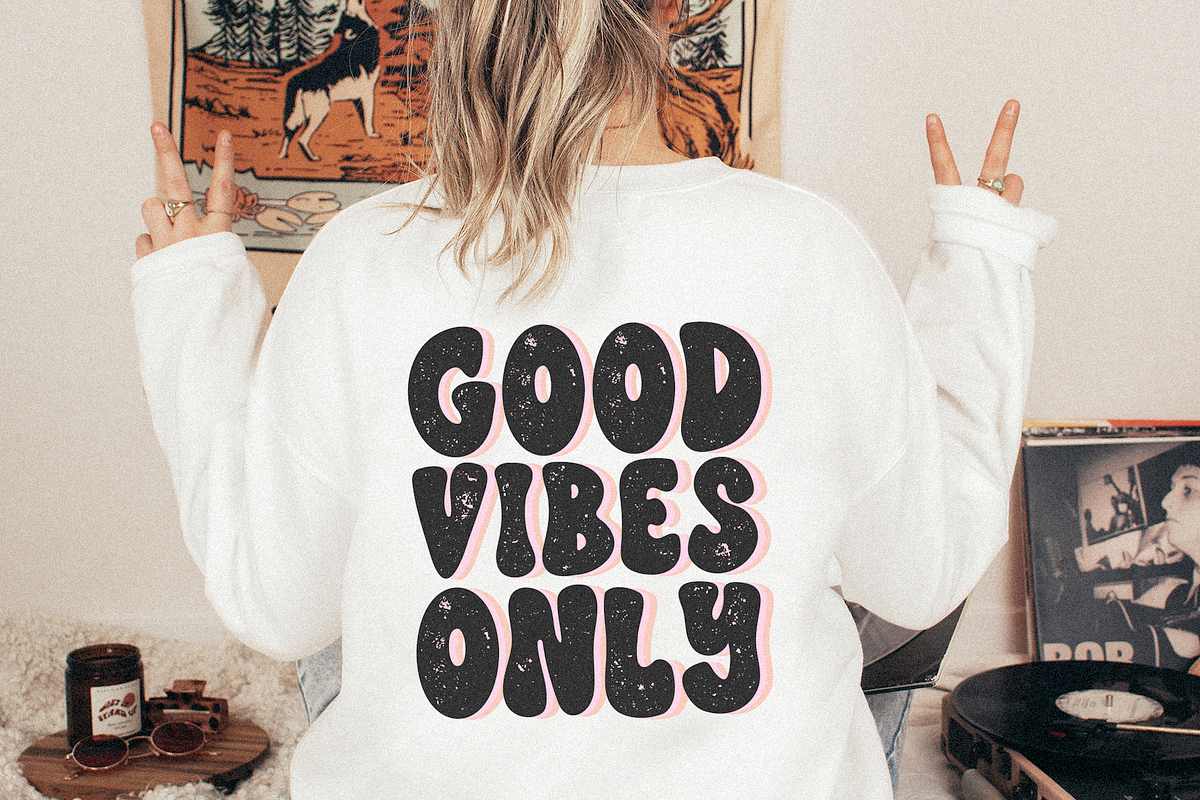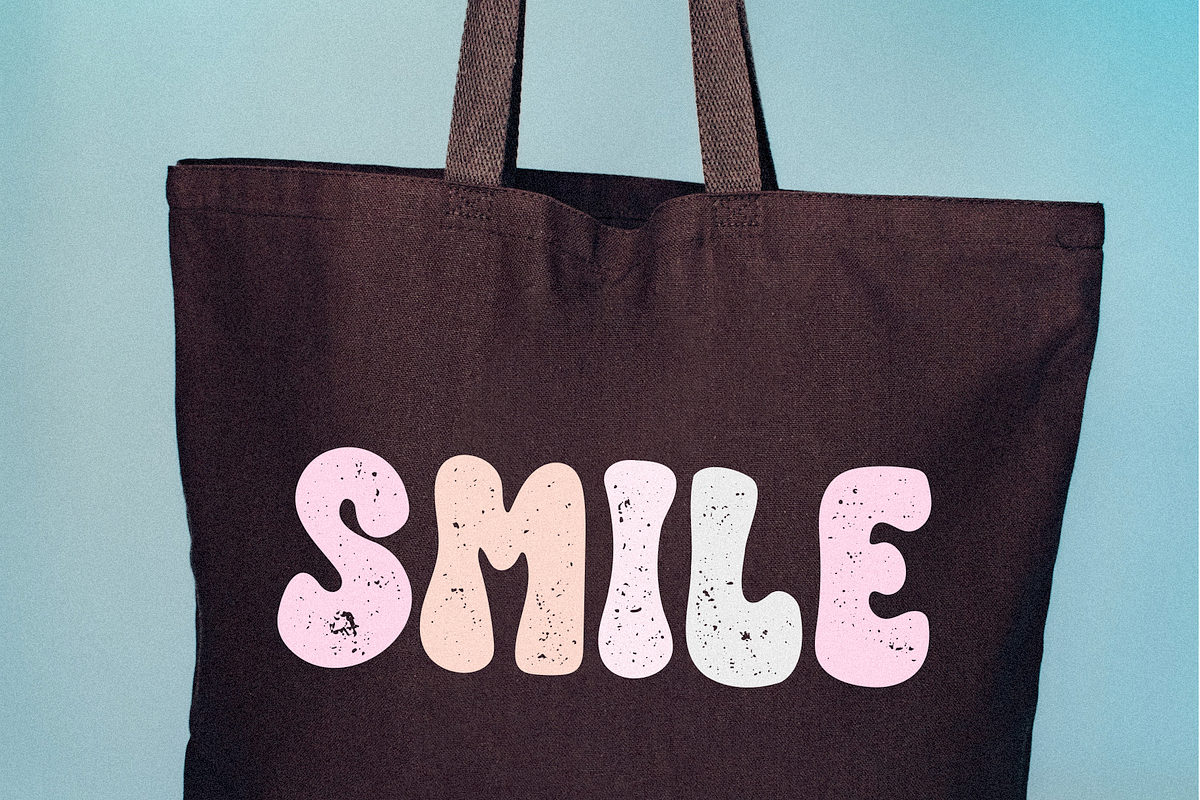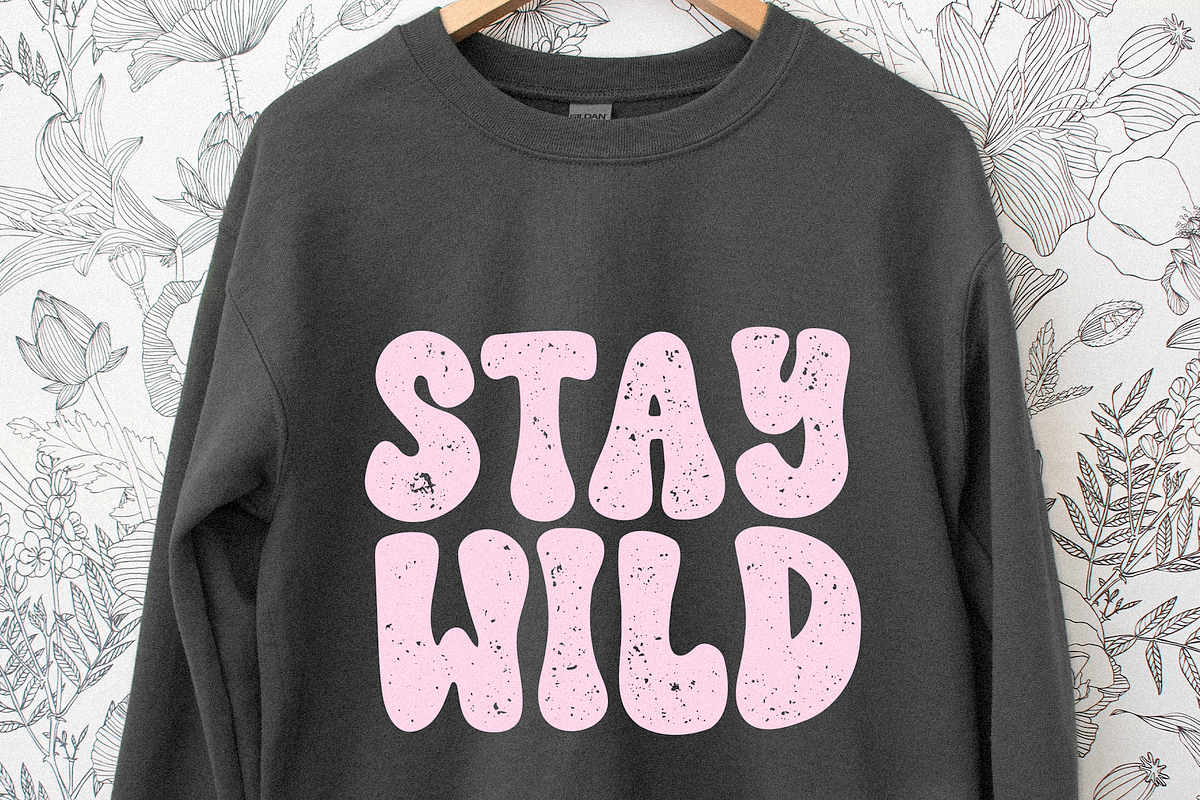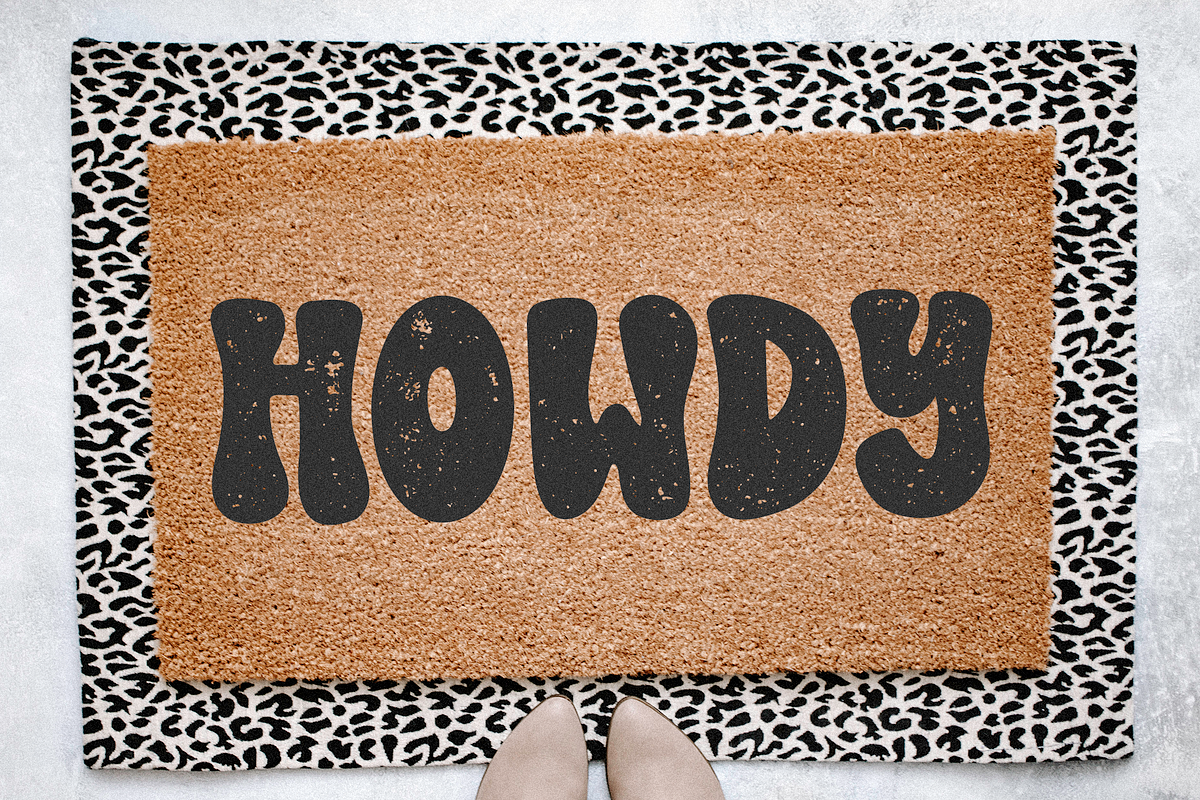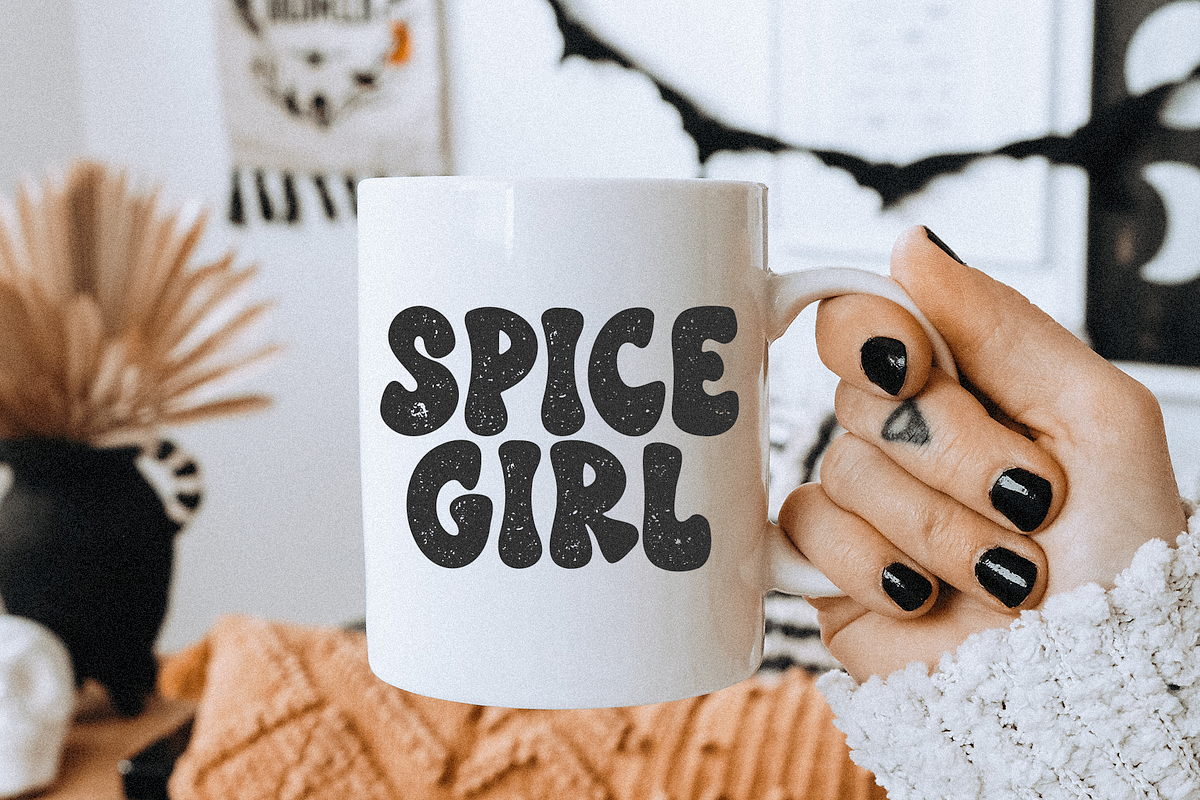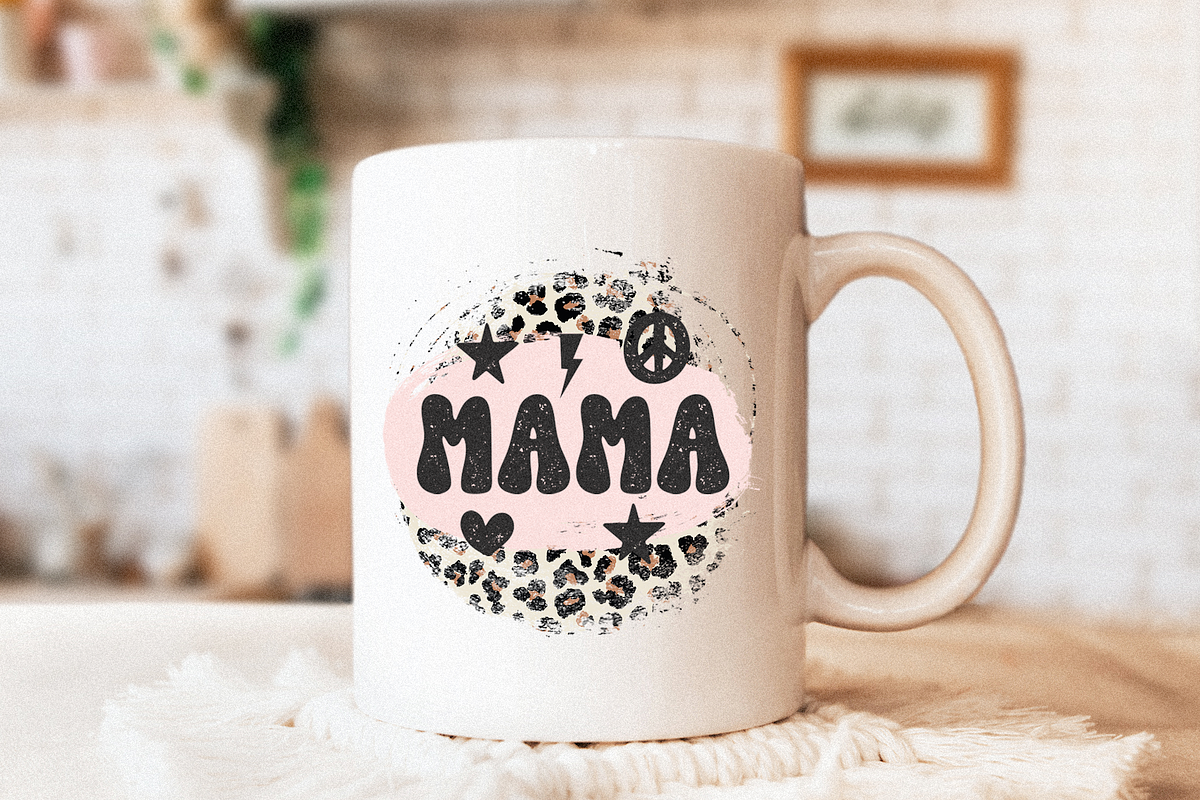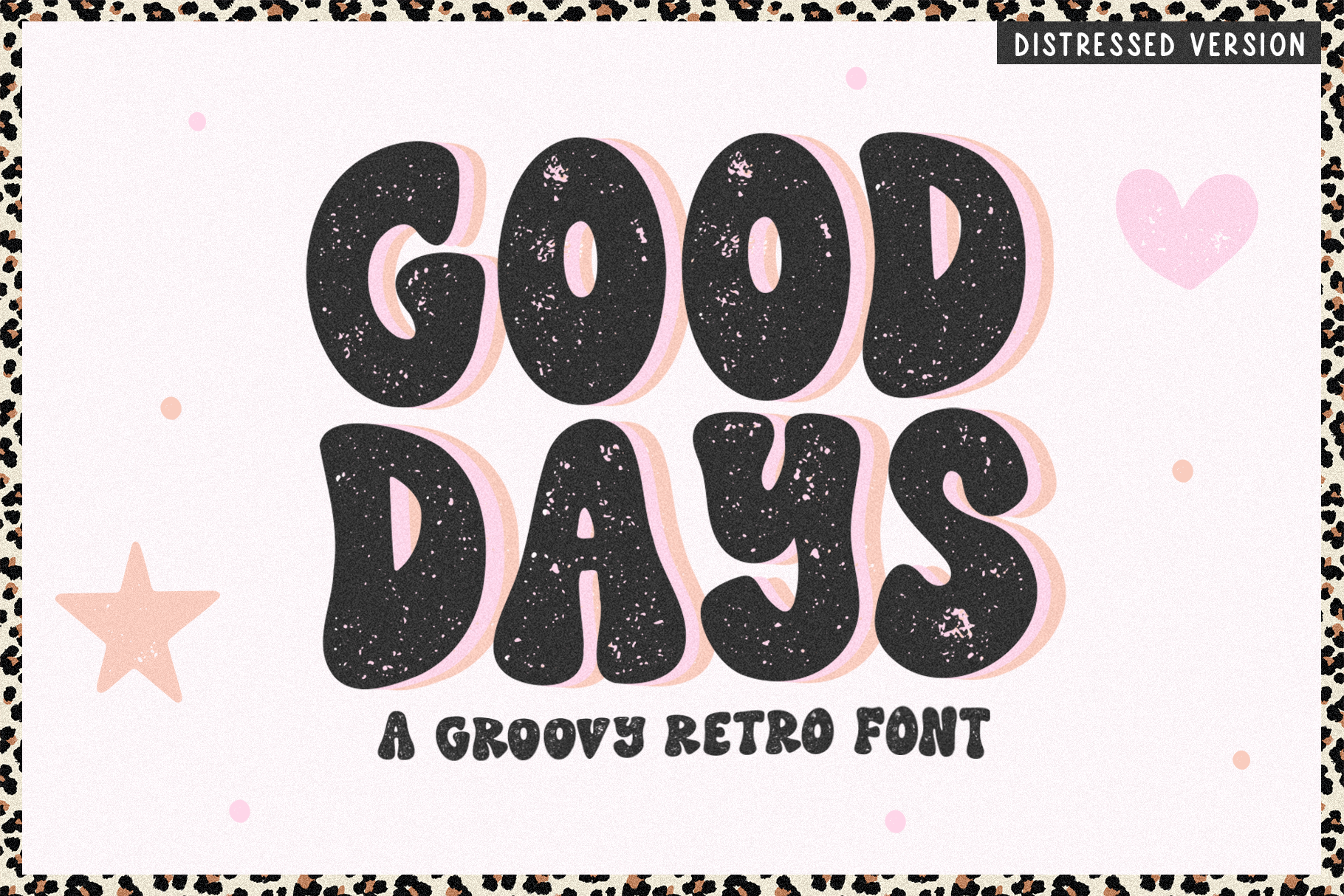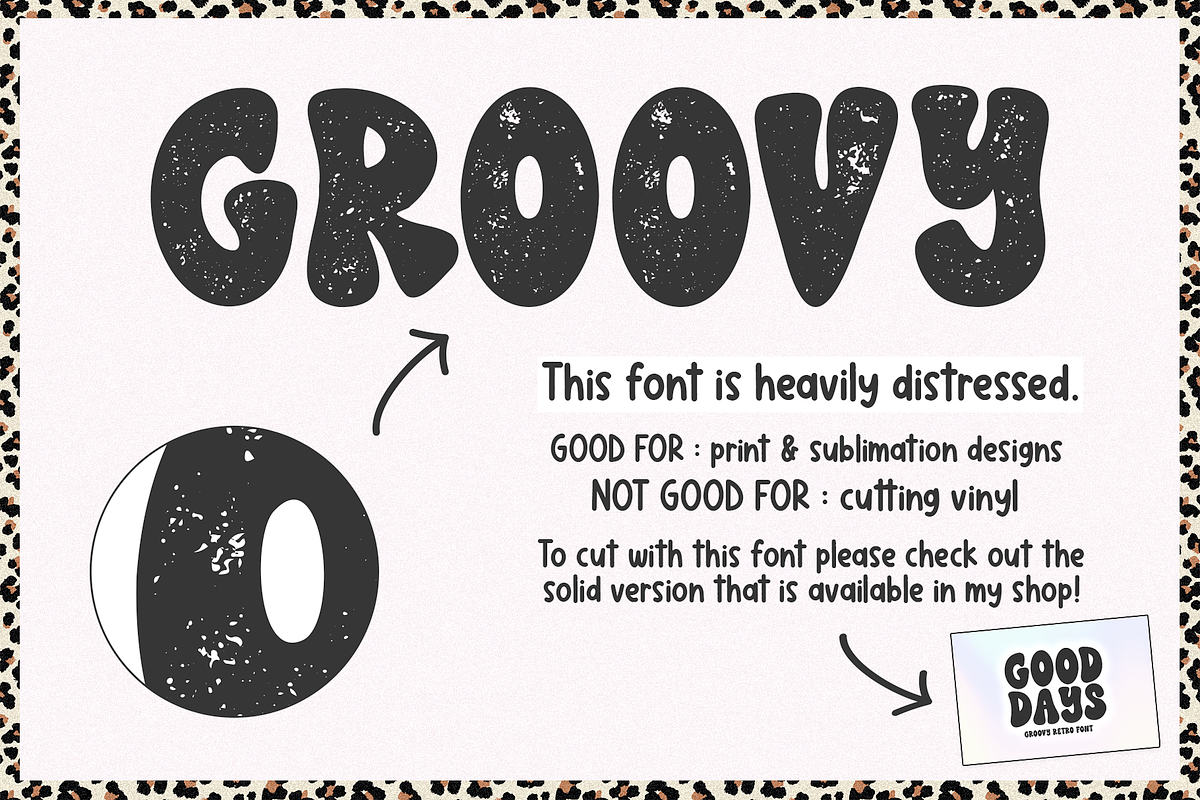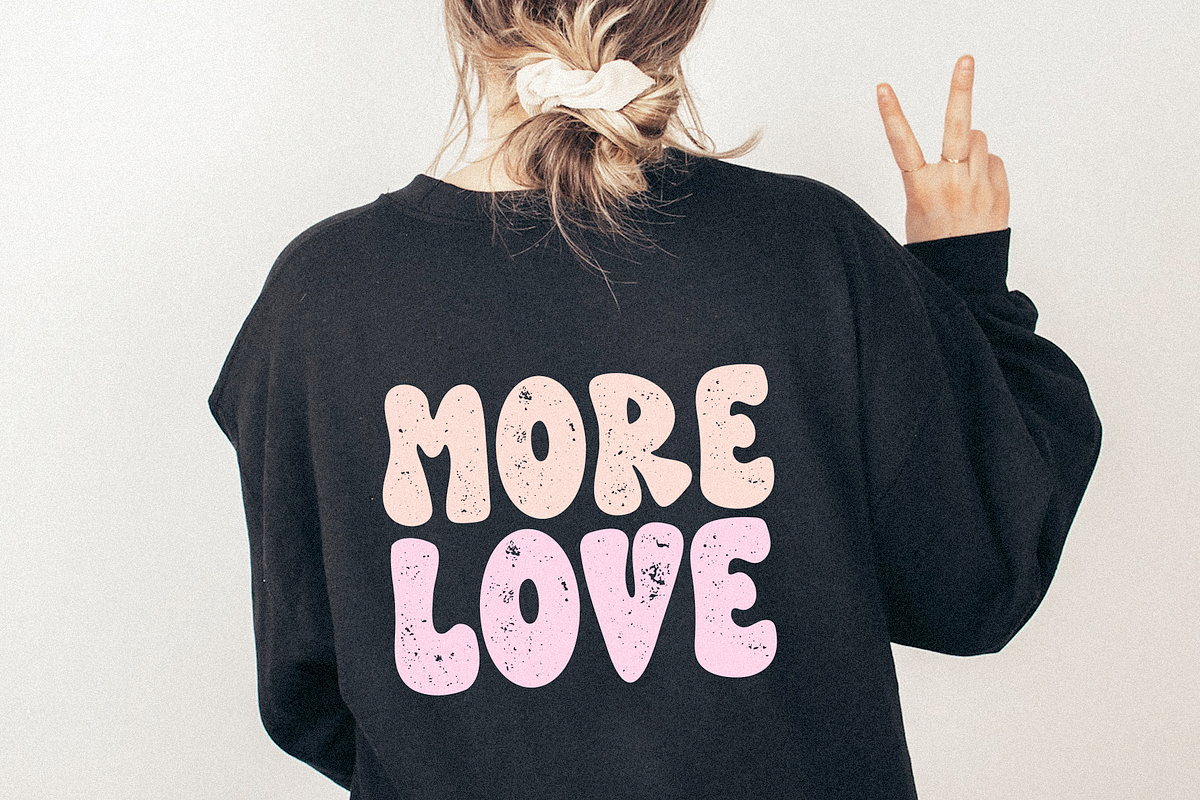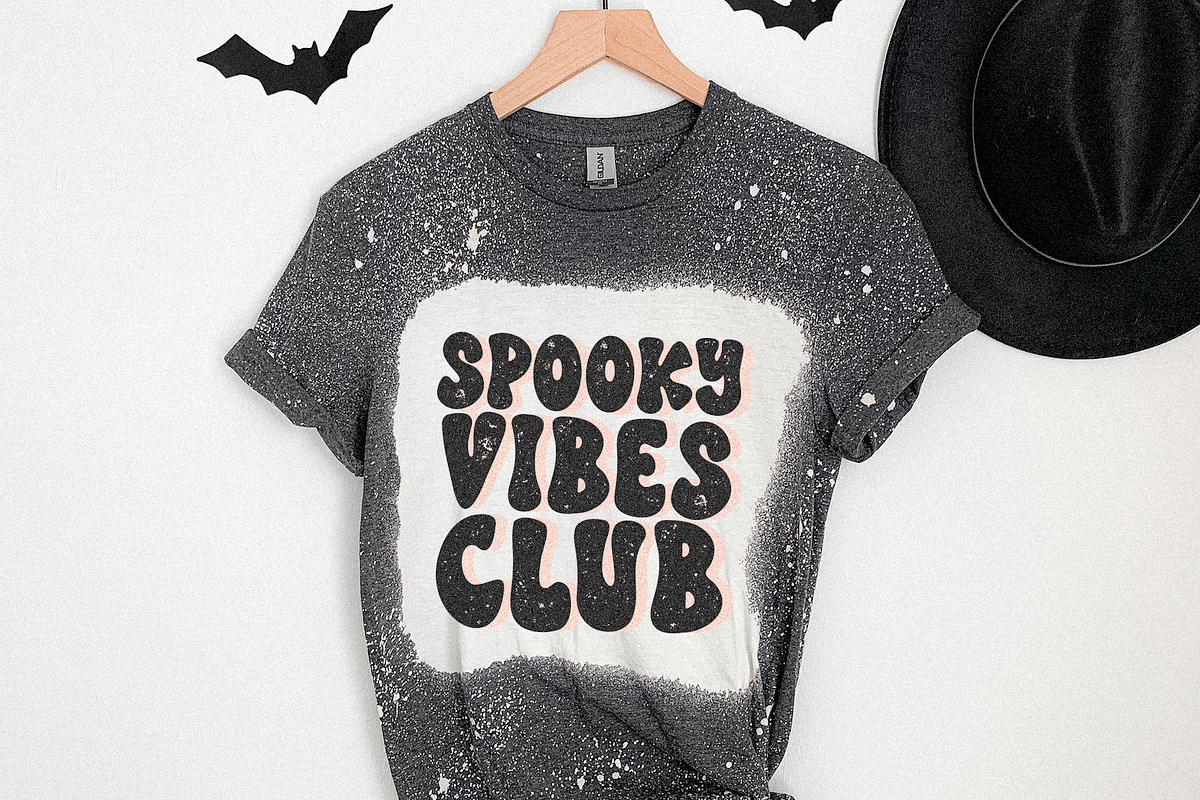
Good Days | Retro Distressed Font
Good Days is a hand-drawn font with a groovy feel and distressed texture.
Note This is a heavily distressed font. This font is good for creating print, web and sublimation designs. This font is NOT good for cutting machines.
Good Days is perfect for creating sublimation designs, shirts, stickers, logos, signs, social media and more! Includes TTF/OTF files.